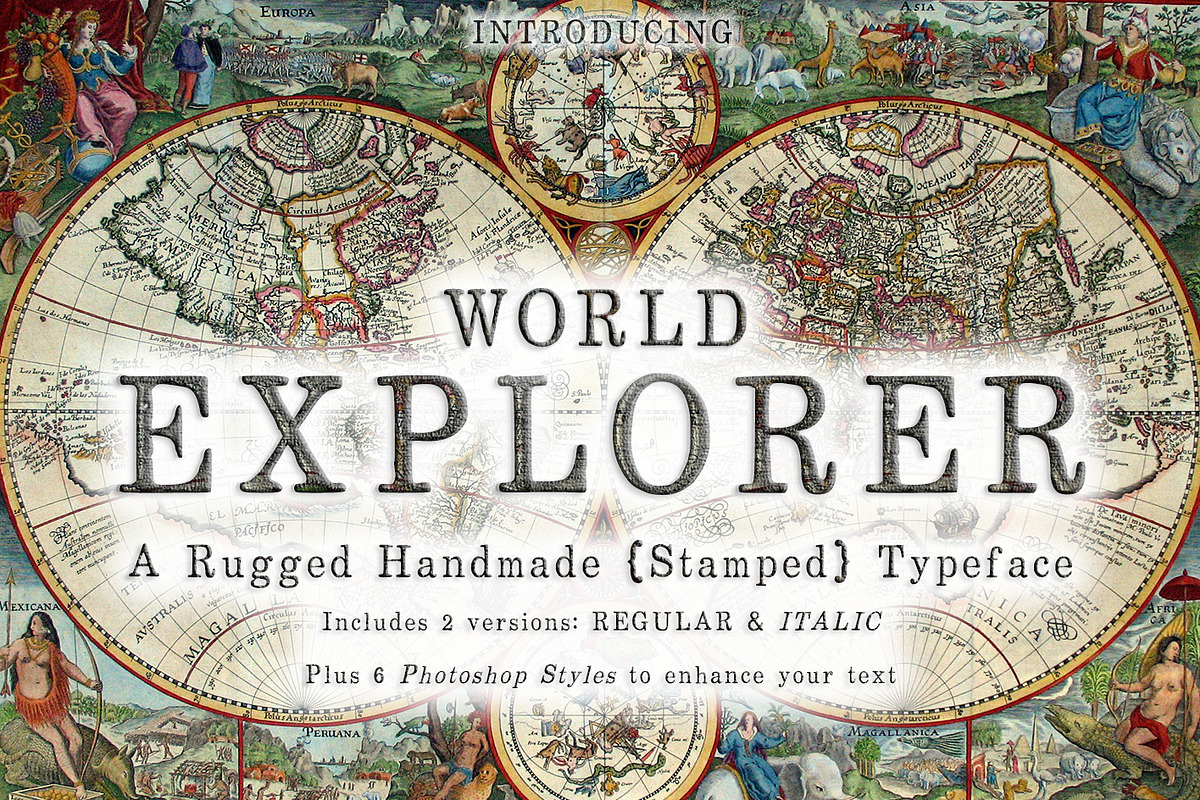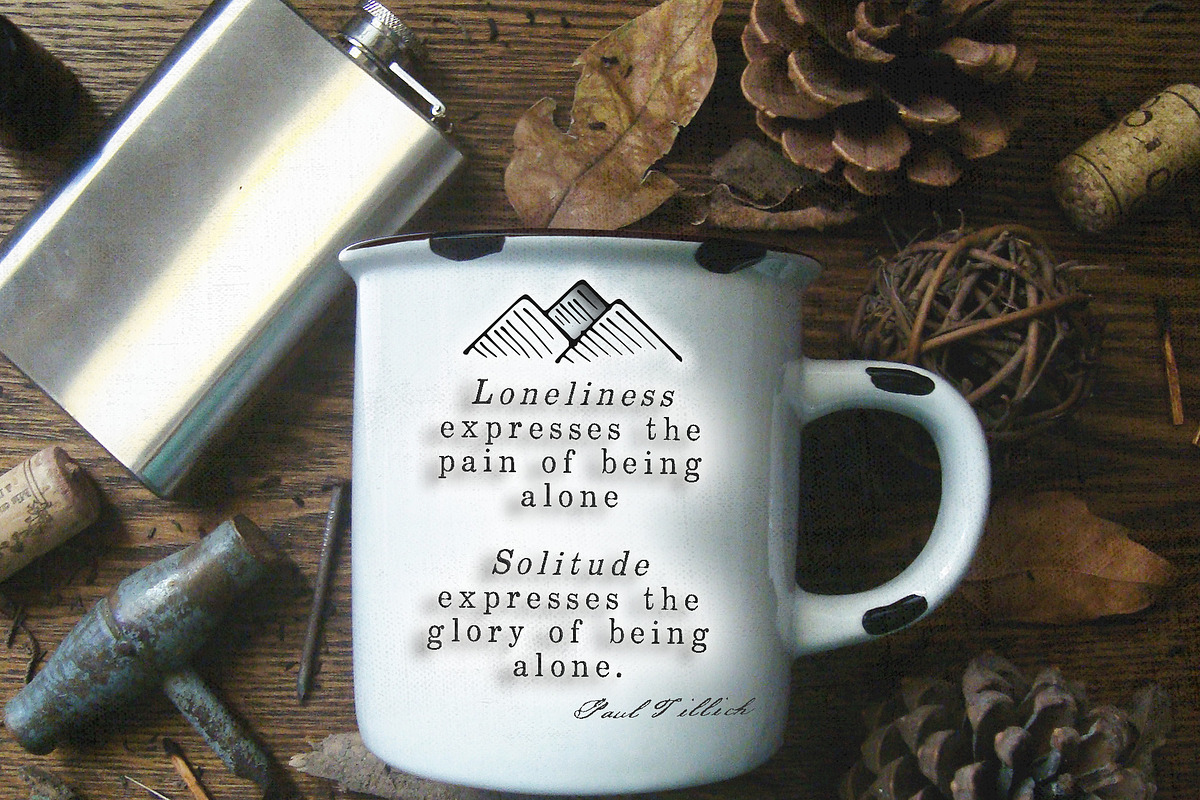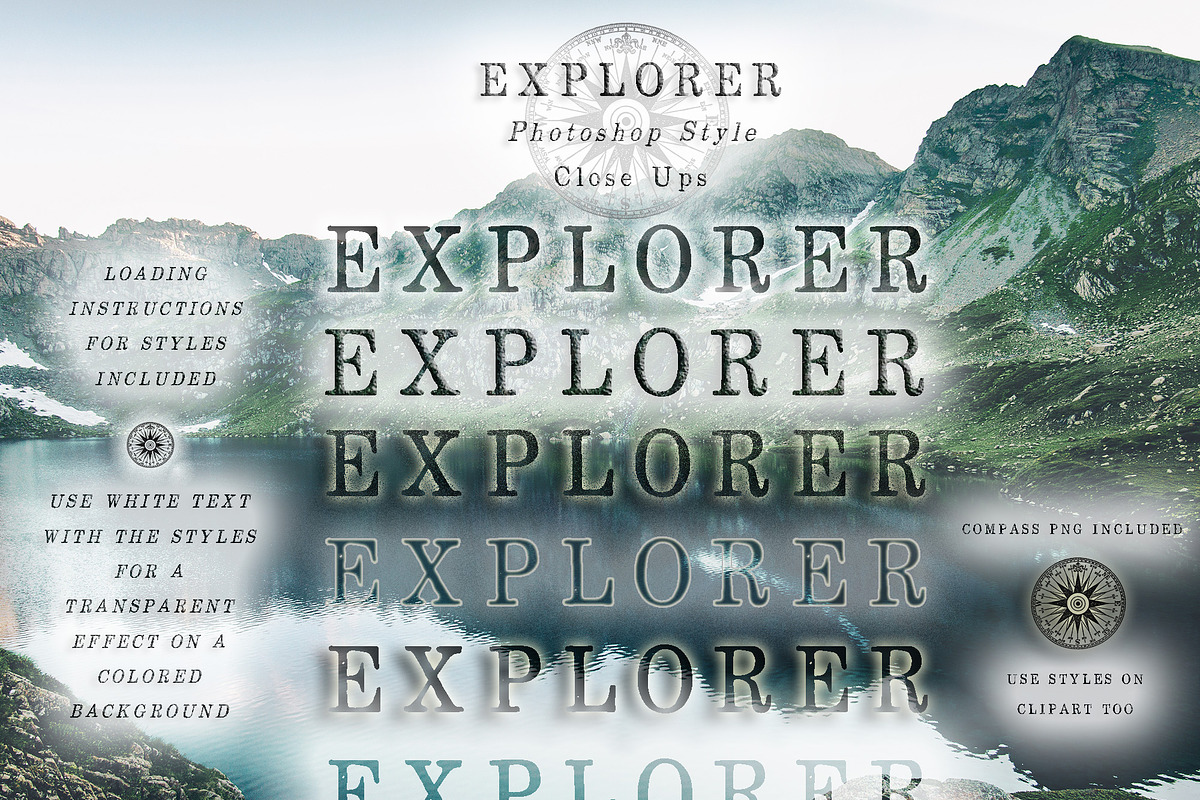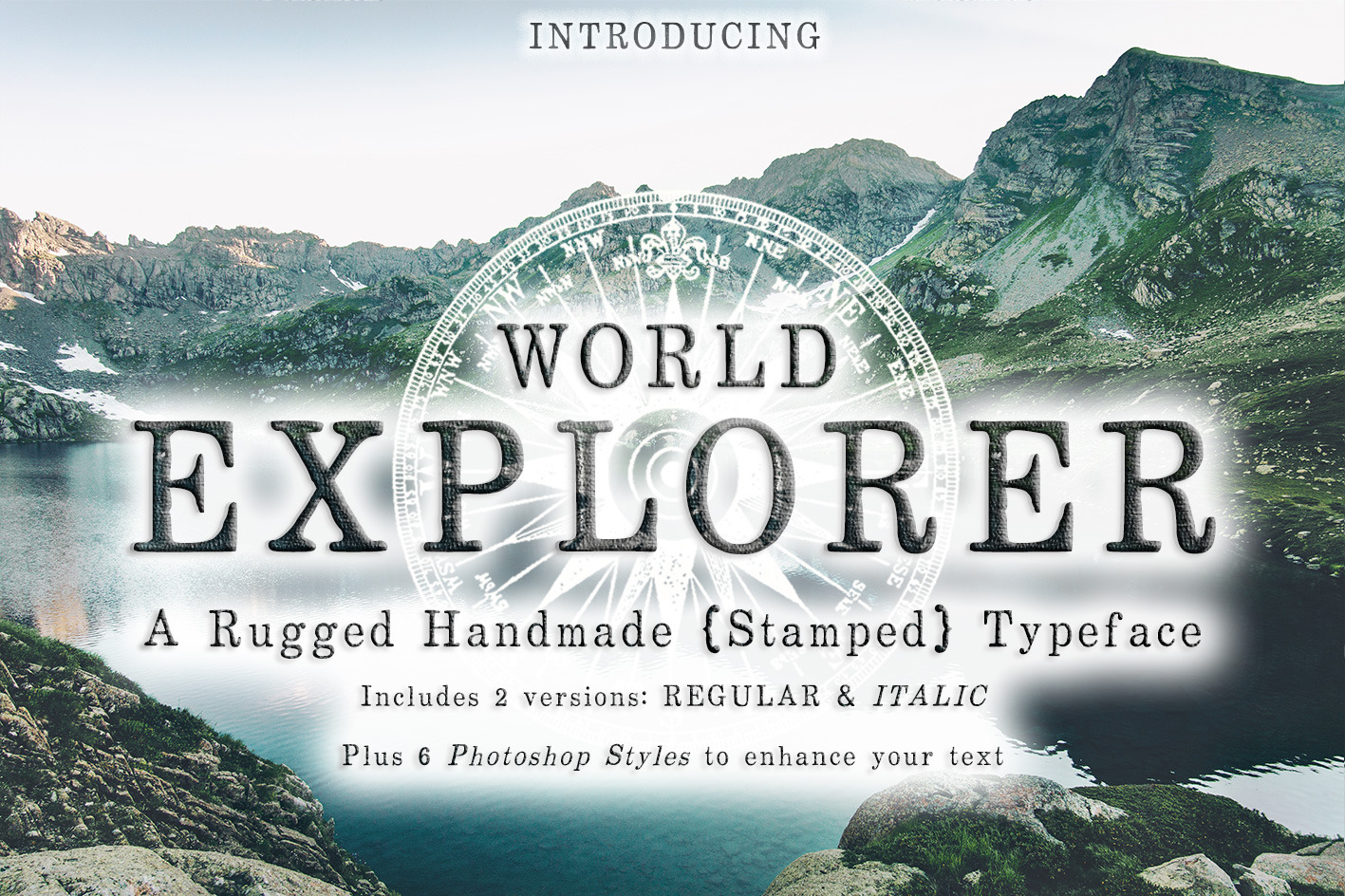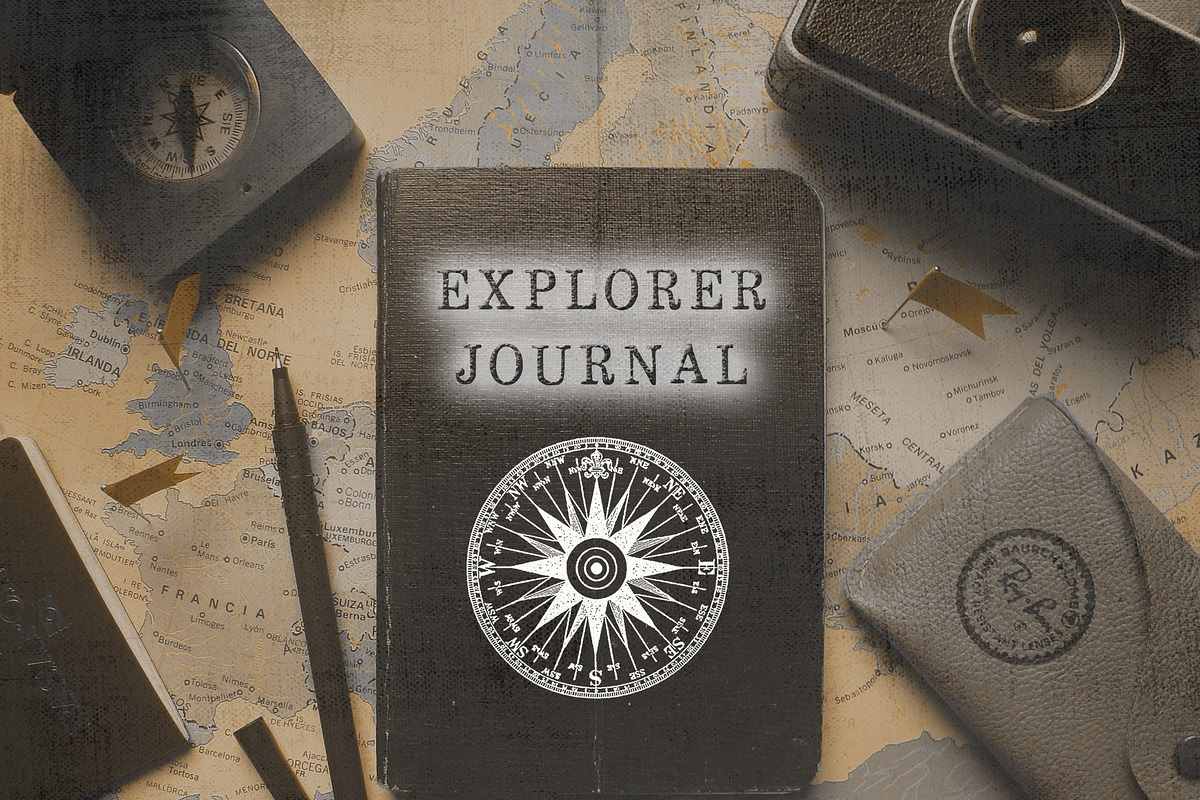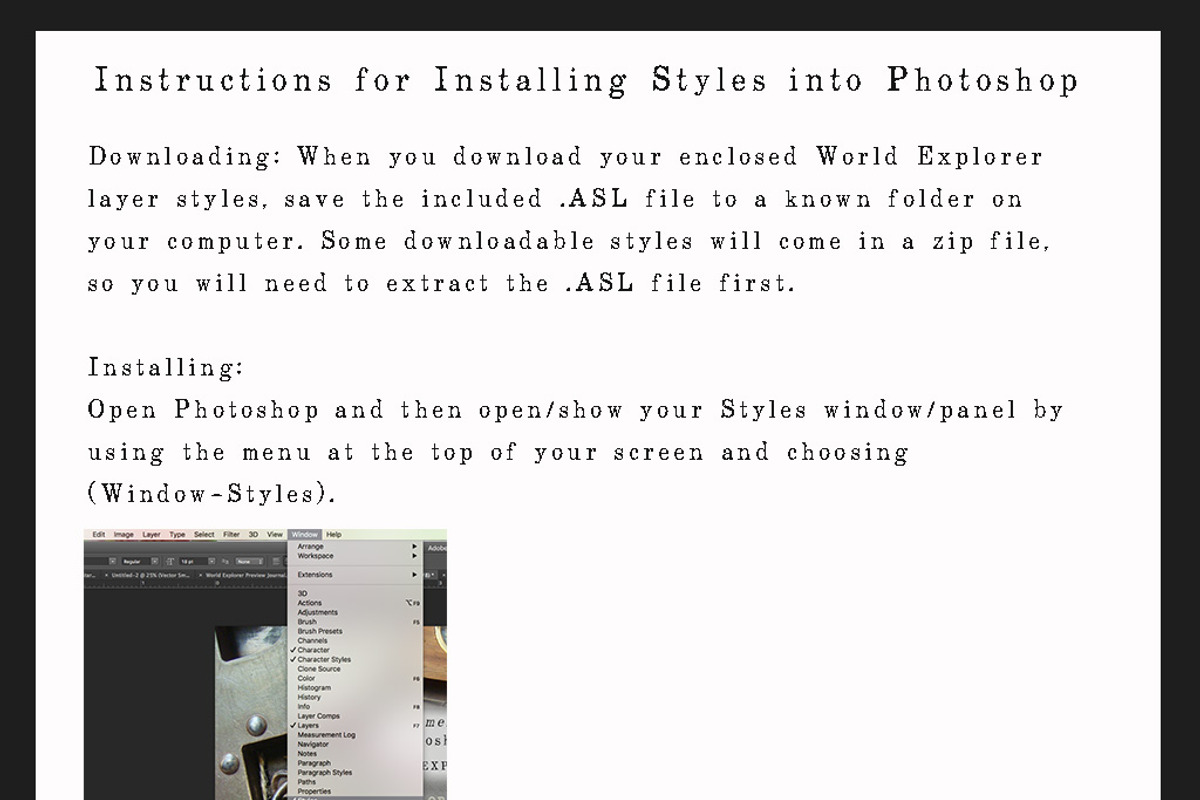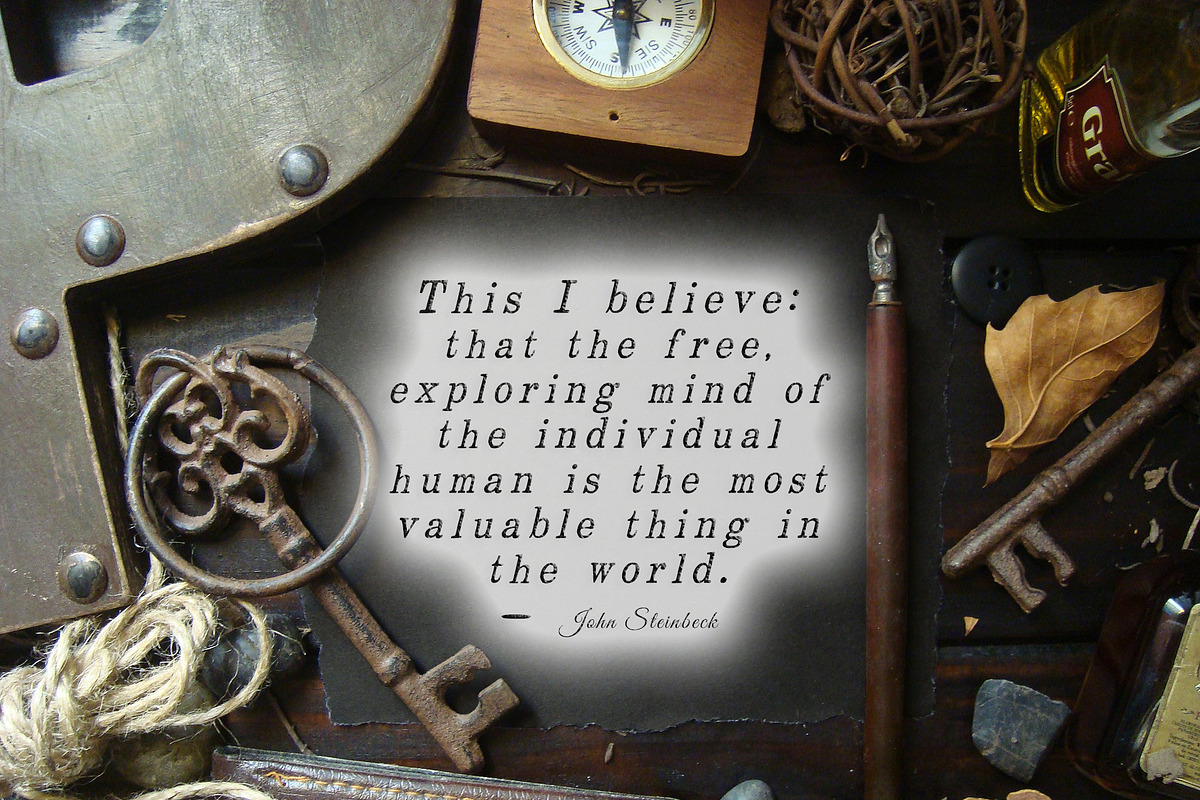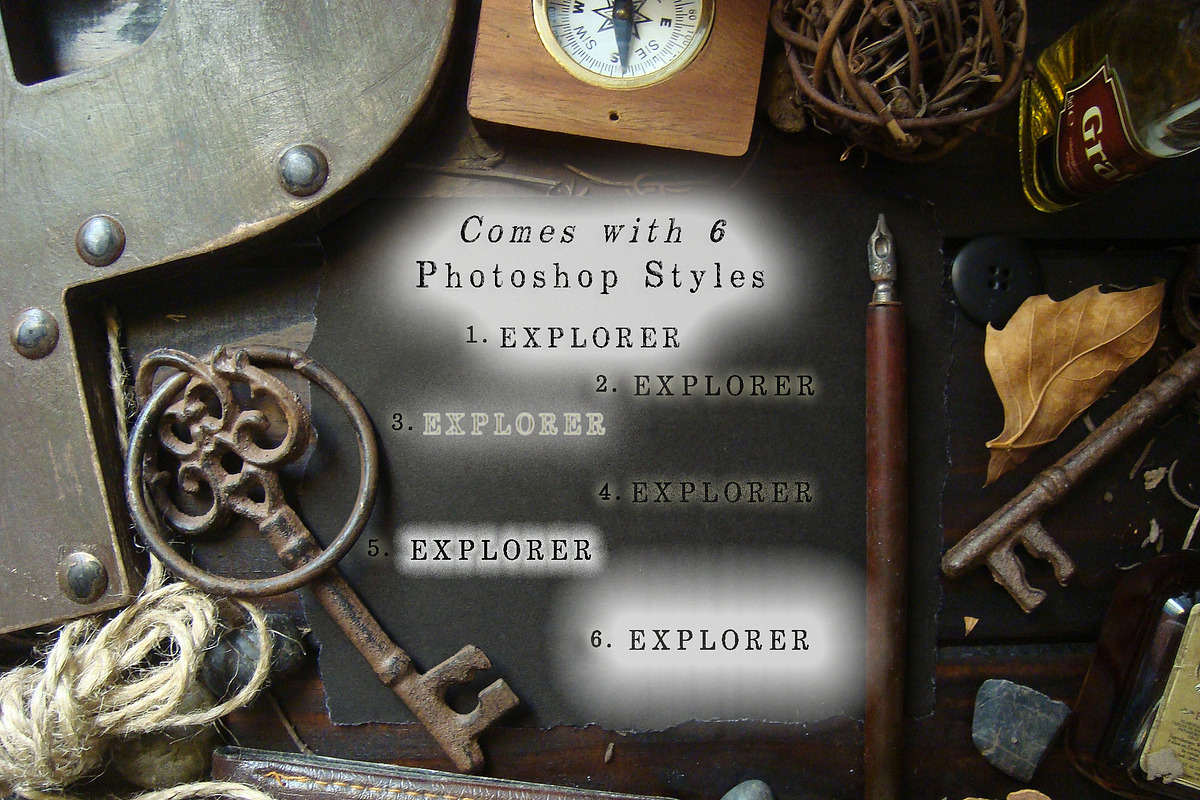
World Explorer Handmade Stamped Font
I'm so proud to introduce WORLD EXPLORER to Creative Market - It's my new handmade font and it's just waiting to be explored. Come admire it's rough and rugged edges. You'll see that it's both casual and rustic. Look deeper and you'll find its got an amazing vintage style... one that's sure to capture the eye!
It's been a few months in the making, but I enjoyed every minute of it. I created WORLD EXPLORER with the intent of making a well-traveled, rugged, hand stamped, natural-looking font for you. I wanted to create a font that resembles stamped letters, rather than the traditional handwritten or hand typed font. It has its origins in a set of old vintage rubber stamps and a pad of ink. Its bold and rough with a strong character that urges you to explore, and It's likely to inspire awe!
The World Explorer typeface is extremely versatile; it works well with everything from the outdoors to rustic weddings, woodlands, farm to table, urban street food, farmers markets, and folk festivals. But that's not all; it travels further to magnificent heights by creating beauty and adding character to vintage style branding. Whatever the terrain, World Explorer has your back!
REGULAR & ITALICS: WORLD EXPLORER comes in both REGULAR and ITALICS and includes upper and lower case letters and numbers, as well the most commonly used symbols.
BONUS STYLES : WORLD EXPLORER also comes with "Photoshop Styles" which you can quickly apply to get some amazing text effects. You can also use these styles to add effects to your clipart or hand sketched ornaments and elements.